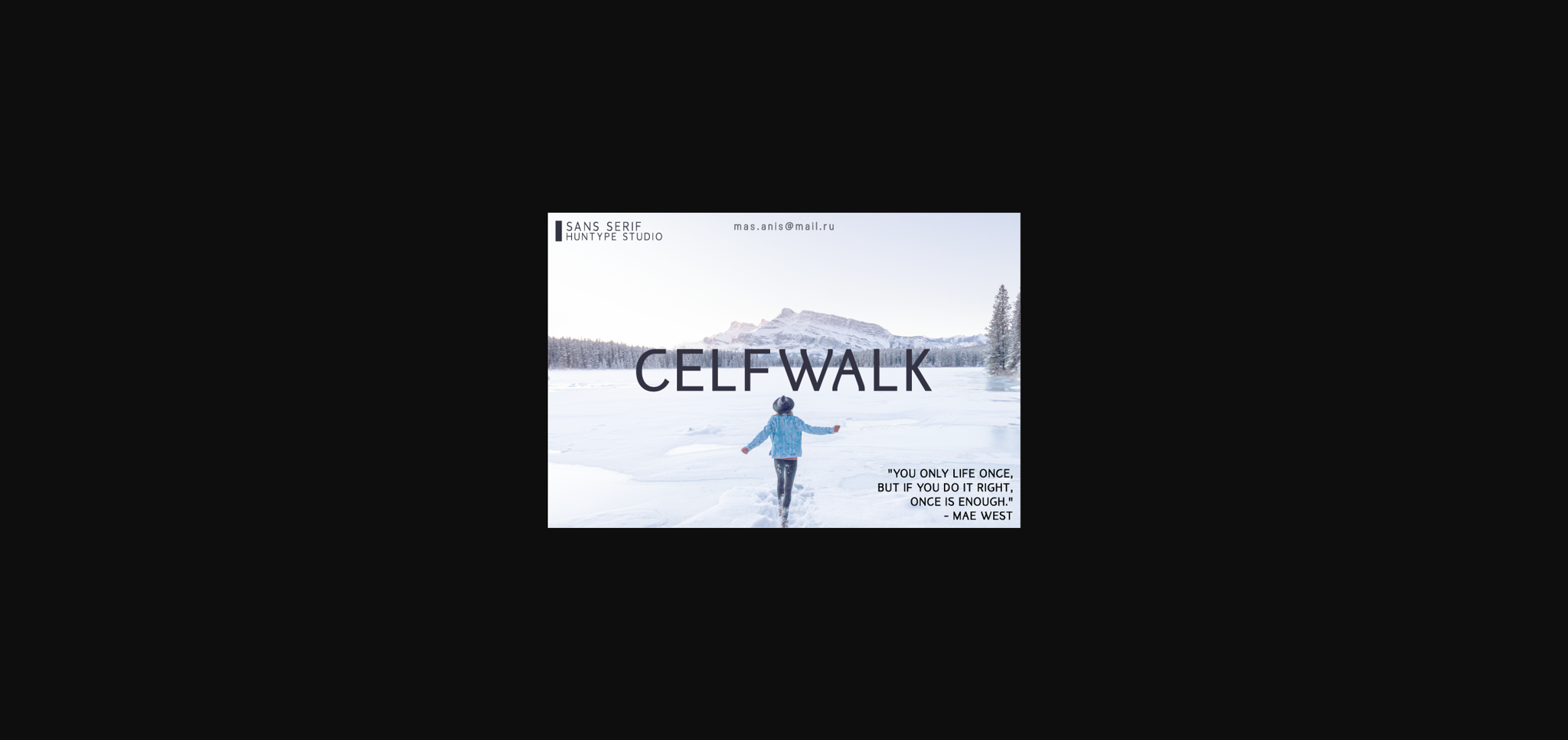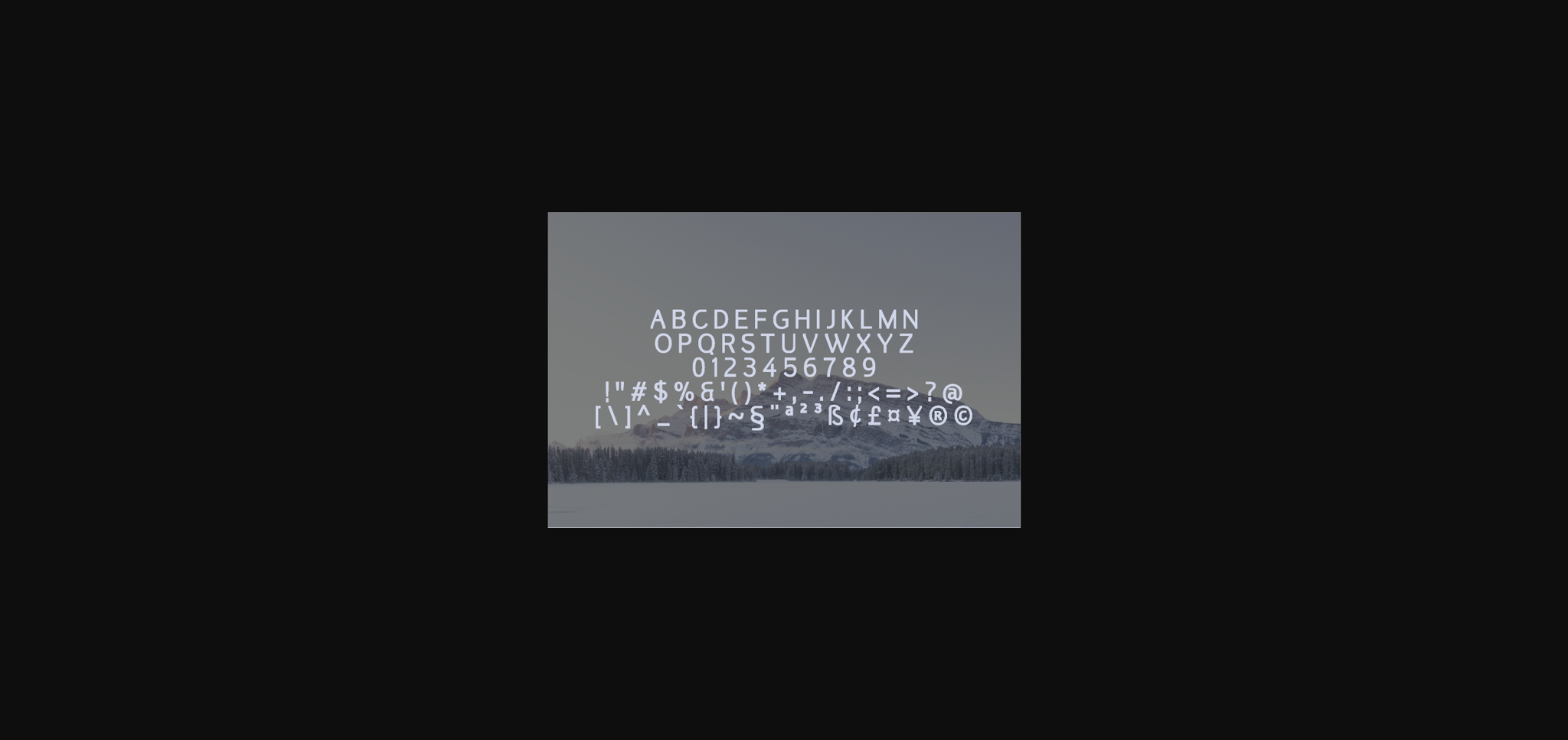
Celfwalk Font
About Celfwalk Font
Celfwalk is a fancy and contemporary sans serif font. It features neat and beautiful characters. This typeface will look outstanding in both formal and non-formal designs.